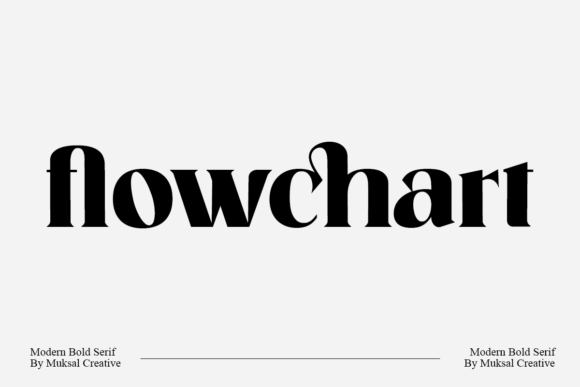
In a world cluttered with monotonous fonts, Flowchart Font stands apart as a bold, modern, and captivating serif typeface that injects life into your designs. Experience the elegance of its meticulously crafted curves, sharp edges, and stunning ligatures that dance harmoniously on the page.
Flowchart Font's versatility knows no bounds. Its robust structure thrives in both small and large sizes, making it an ideal choice for a diverse range of projects. Unleash your creativity in editorial layouts, where Flowchart Font's distinct character adds depth and intrigue to your words. Let your imagination soar as you design logos that embody strength and sophistication.
For those seeking to make a lasting impression, Flowchart Font is the perfect companion. Its bold presence commands attention on clothing labels and product packaging, creating a striking visual identity that sets your brand apart. Its timeless charm adds a touch of elegance to magazine headers, capturing the reader's attention and inviting them to delve into the written world.
With Flowchart Font, transform ordinary text into captivating visual elements. Its versatility extends beyond traditional applications, allowing you to overlay it on background images, creating captivating compositions that ignite the imagination. Unlock a world of endless possibilities and let your creativity flourish.